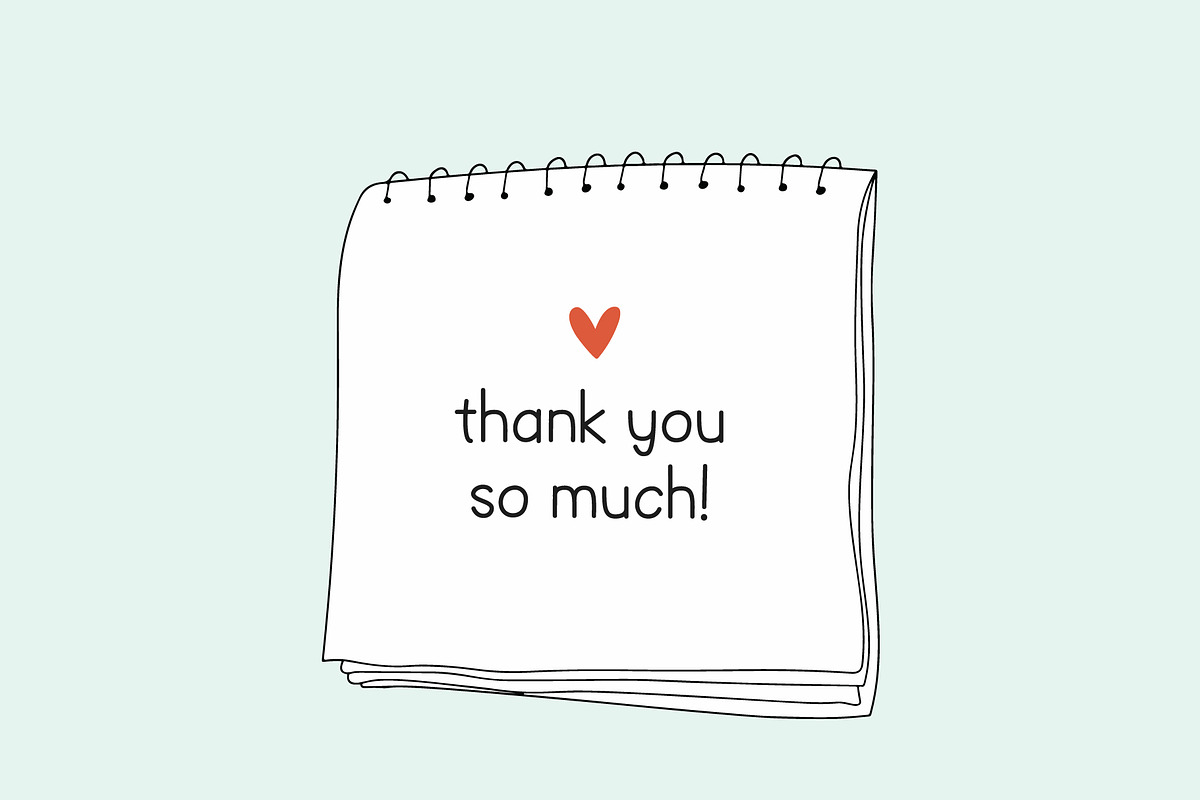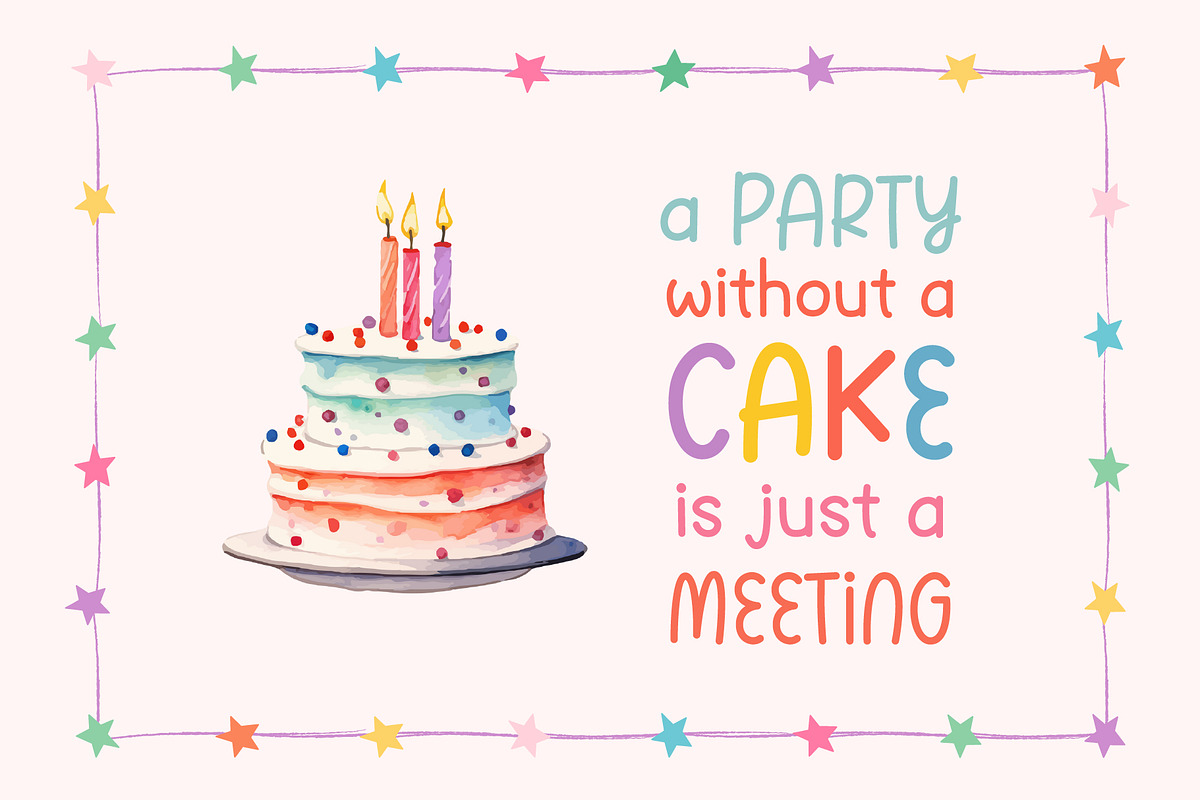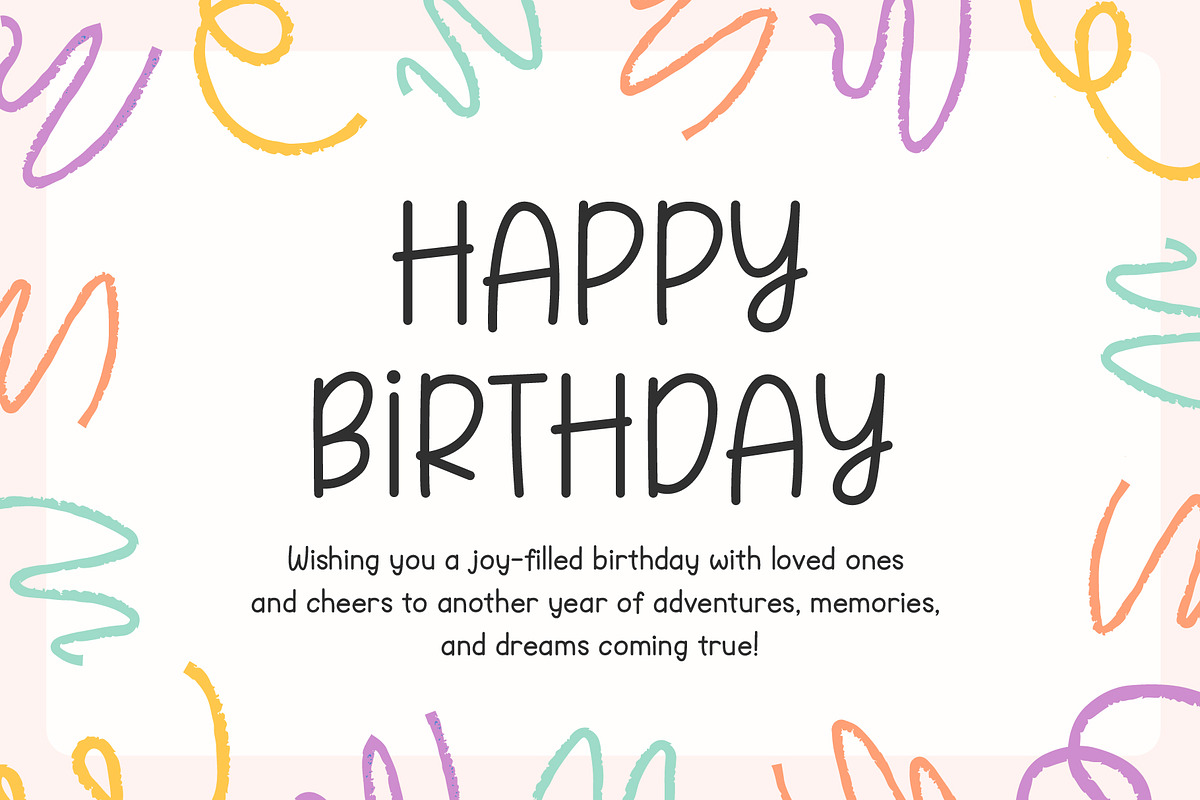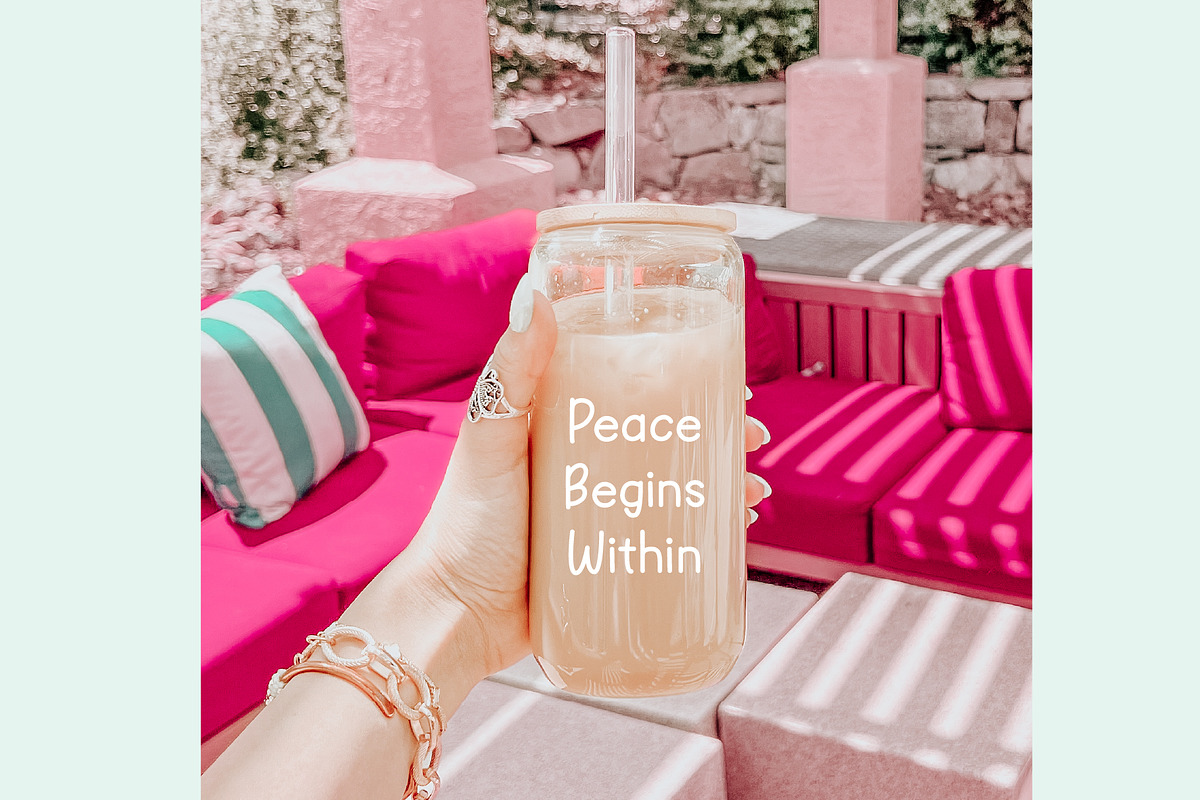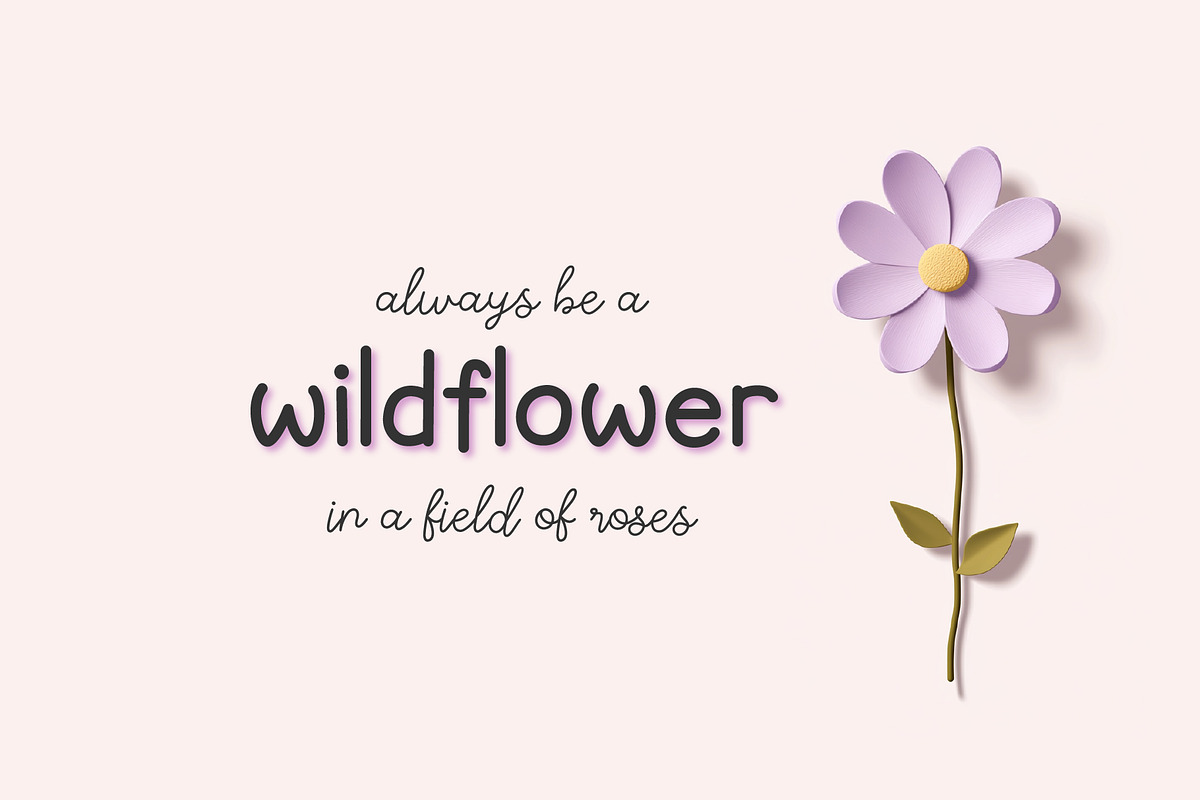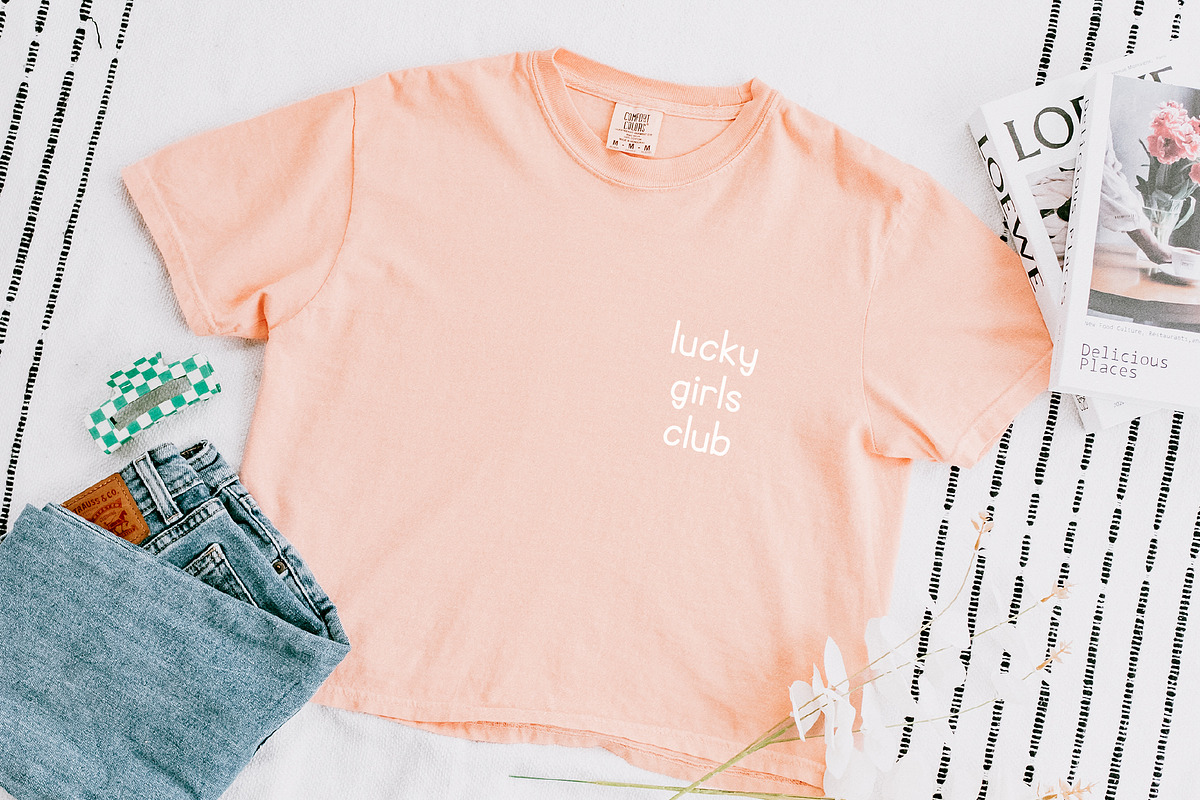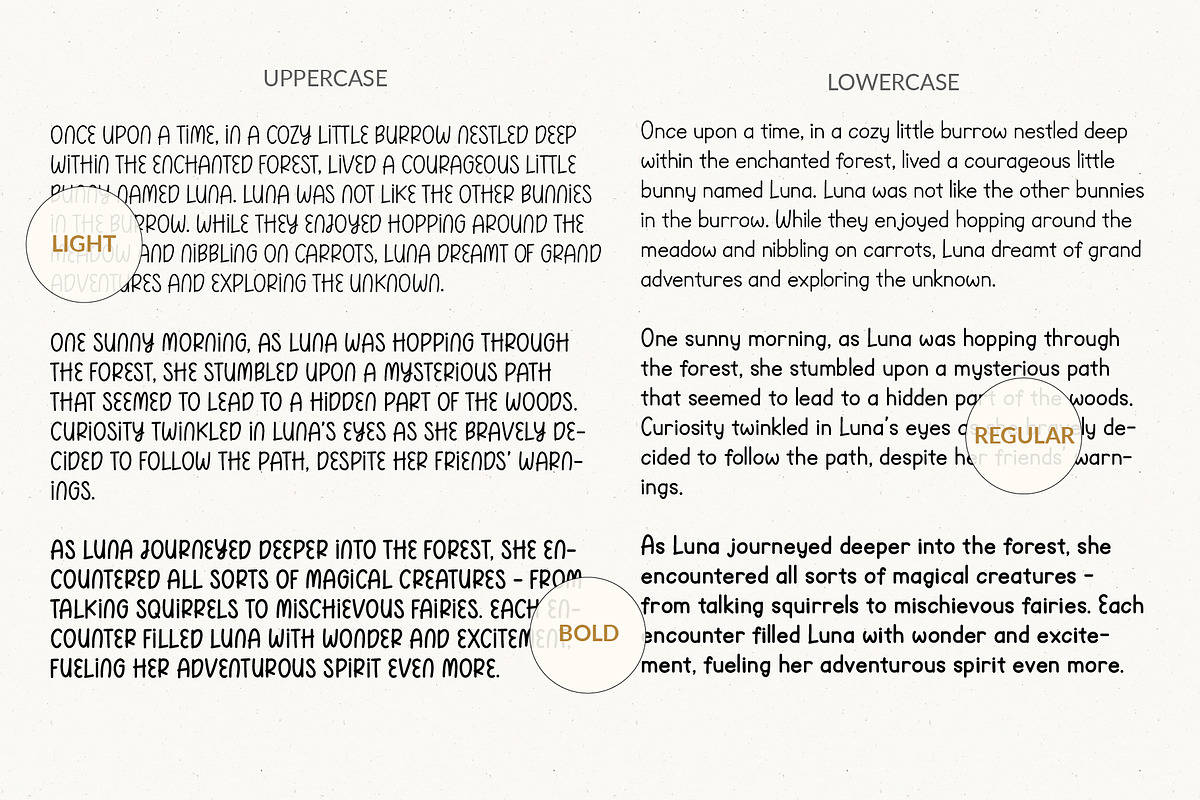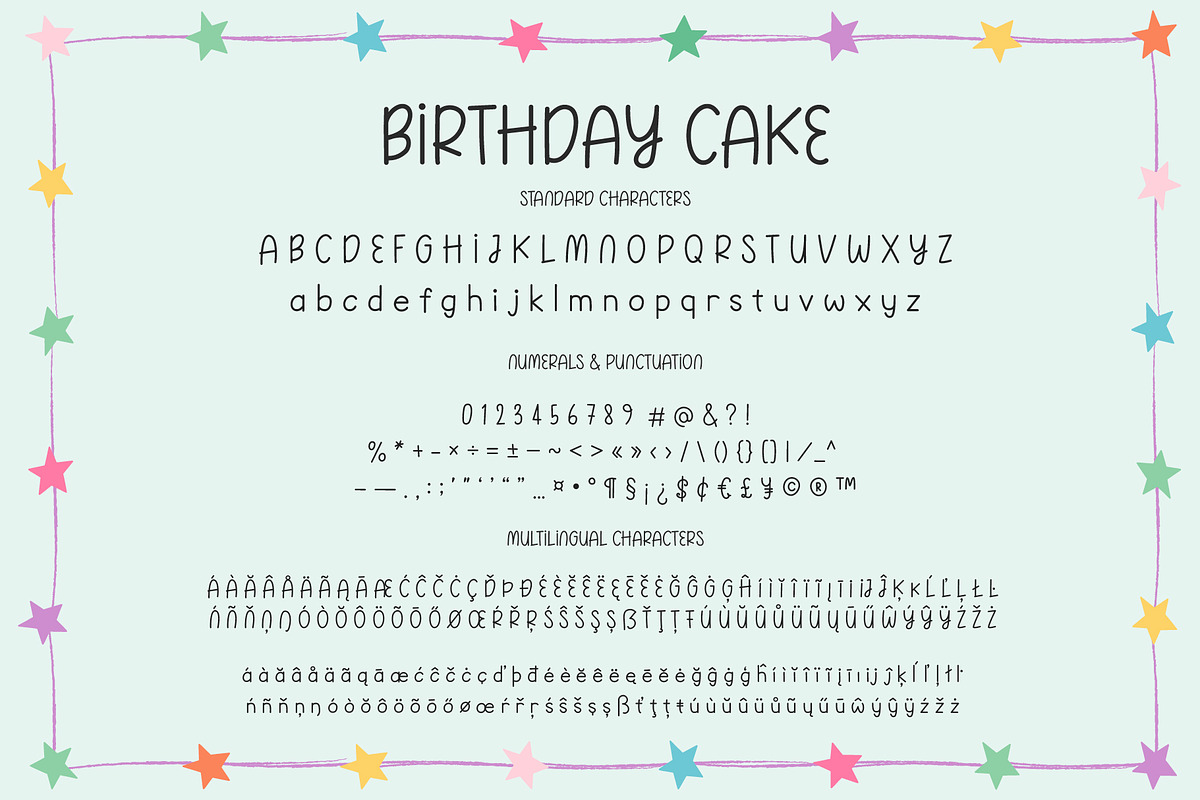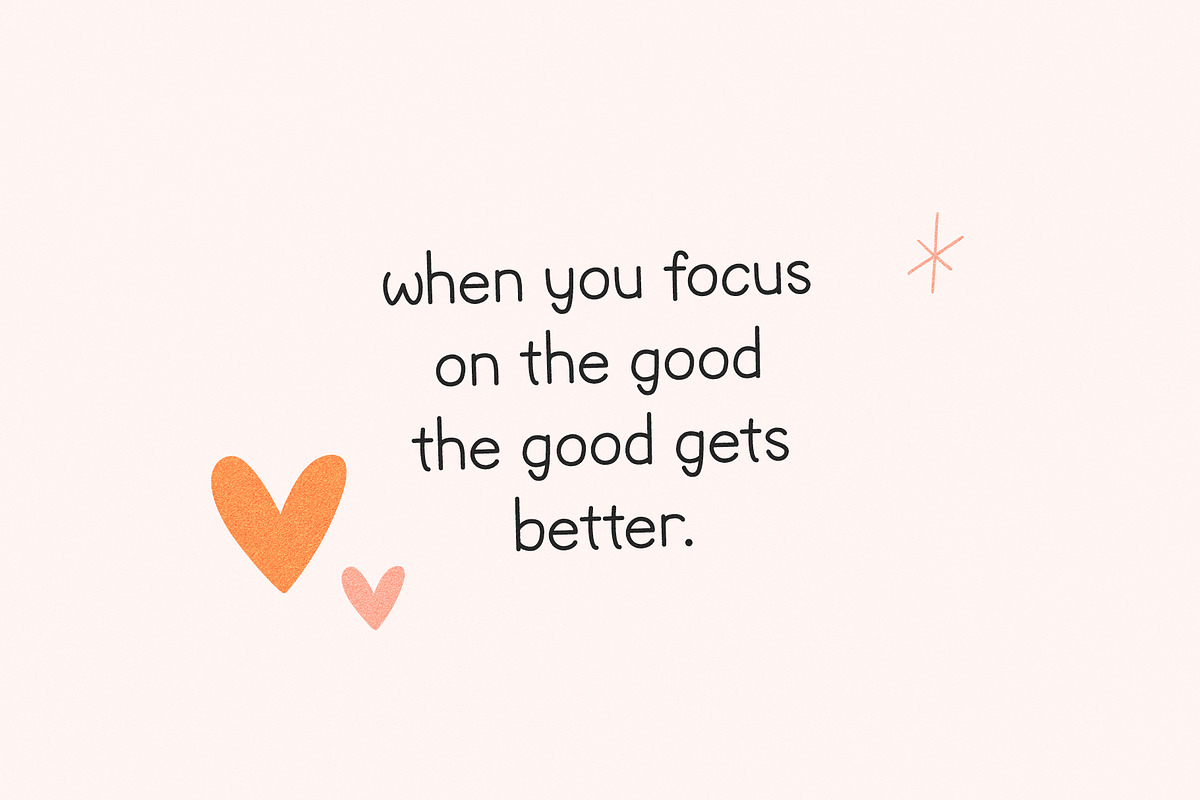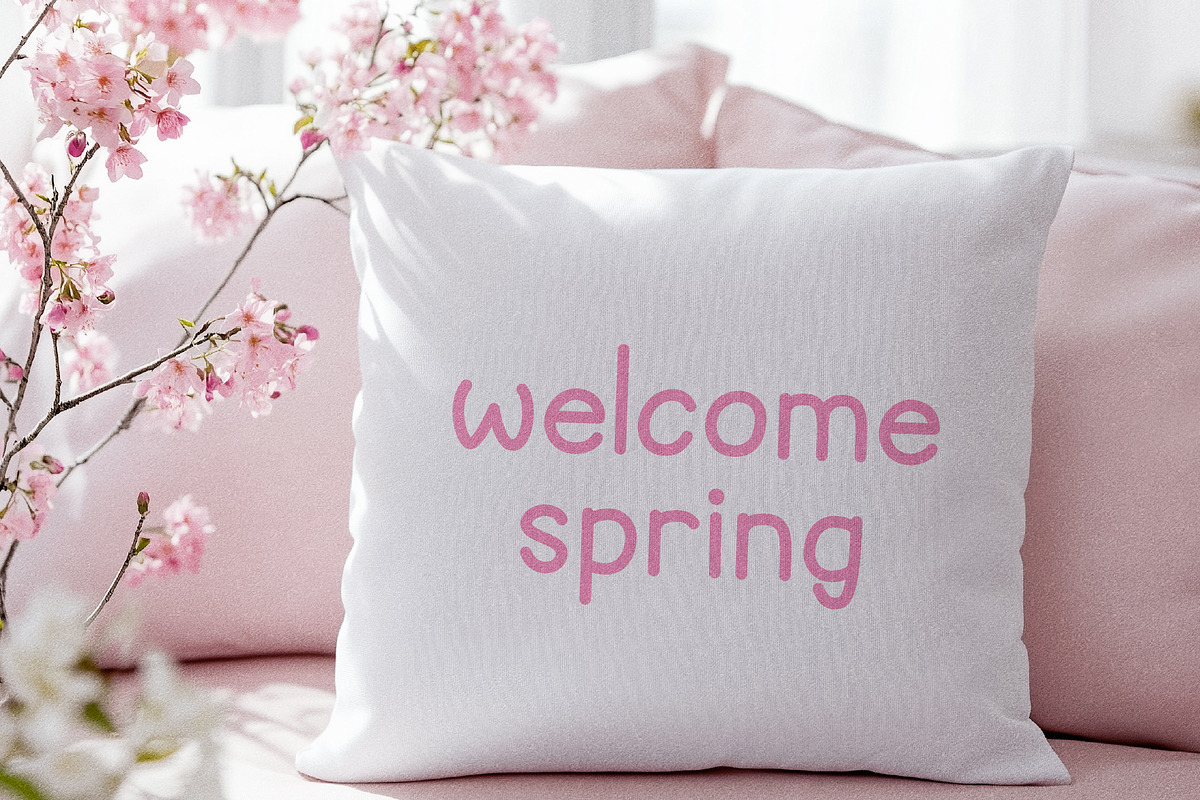
Birthday Cake Handwritten Font
Say hello to Birthday Cake, a charming and neat handwritten font family. Perfect for craft projects, digital planners, invitations, greeting cards, logos, branding, social media, and anything else that needs a warm, personal touch.
FONT FEATURES
• Cute script font
• Standard characters (lowercase, uppercase, numbers, punctuation)
• Supported Languages: Czech, Danish, Dutch, English, Esperanto, Estonian, Filipino, Finnish, French, Friulian, Galician, German, Hungarian, Sami, Indonesian, Irish, Italian, Latvian, Lithuanian, Luxembourgish, Norwegian Bokmål, Norwegian Nynorsk, Polish, Portuguese, Romanian, Scottish Gaelic, Serbian, Slovak, Slovenian, Spanish, Swedish, Swiss German, Turkish